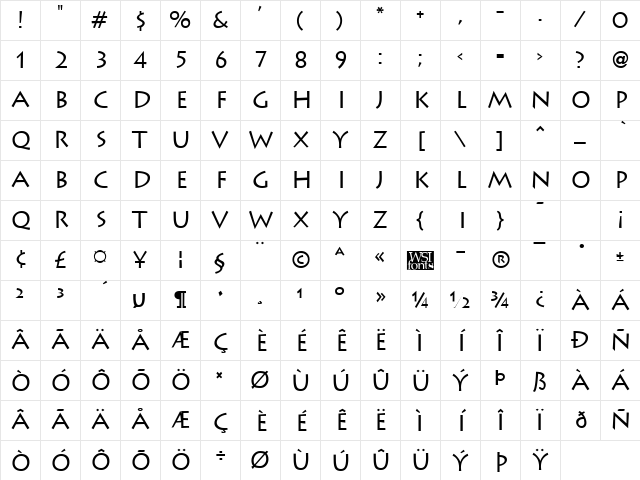
Liddie Regular
Liddie Family
Complete Liddie Regular glyph index. Displaying only characters natively supported by Liddie Regular font.
Design Context for Liddie
Liddie is a composed and adaptable typeface that performs quietly and consistently across a wide range of design contexts.